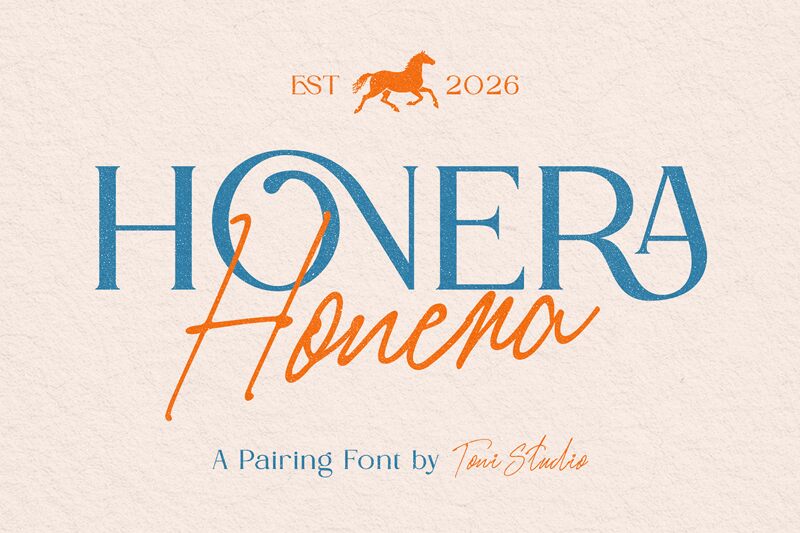
HONERA
HONERA font by Toni Studio is a free serif font that feels crisp and editorial, with tall, sculpted capitals and confident, steady spacing. The strokes stay clean and controlled, giving words a polished, museum-poster calm without turning cold. It’s the kind of typeface that looks like it was printed with fresh, inky precision on thick paper.
Using HONERA shines on book covers, fashion lookbooks, magazine mastheads, boutique branding, premium packaging, event invitations, and website hero headings where you want instant credibility. Set it roomy and a touch oversized so the letterforms can breathe, and pair it with a quiet sans for body copy to keep the page feeling modern. This free font brings a refined rhythm that makes short headlines and names land with authority.